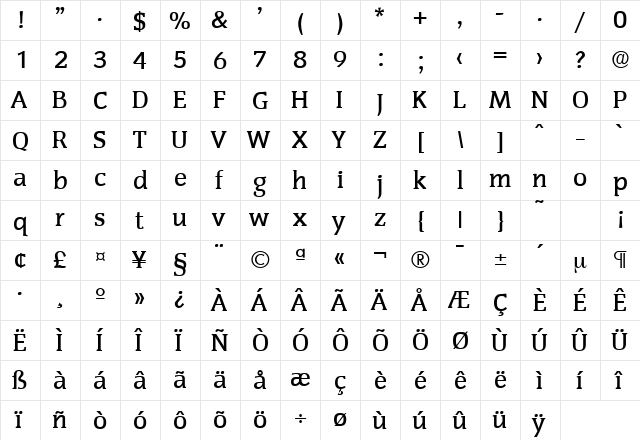
Congress-Serial-Medium Regular
Design Context for Congress-Serial-Medium Typeface
Congress-Serial-Medium offers clean, dependable letterforms without strong stylistic allegiance, making it a practical choice for designers who need flexibility.